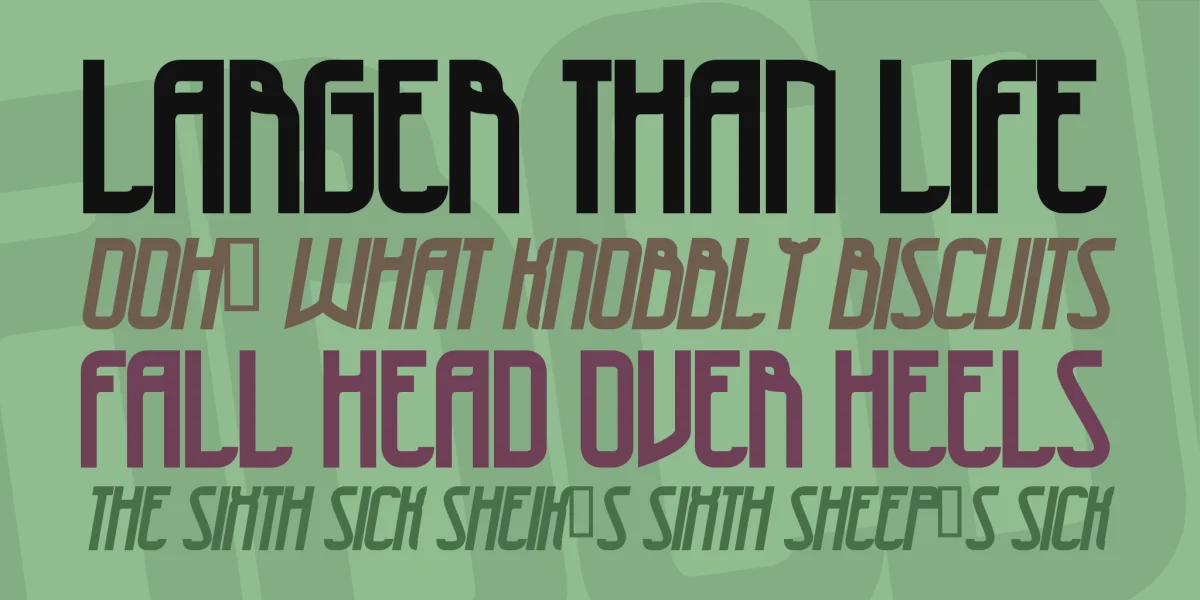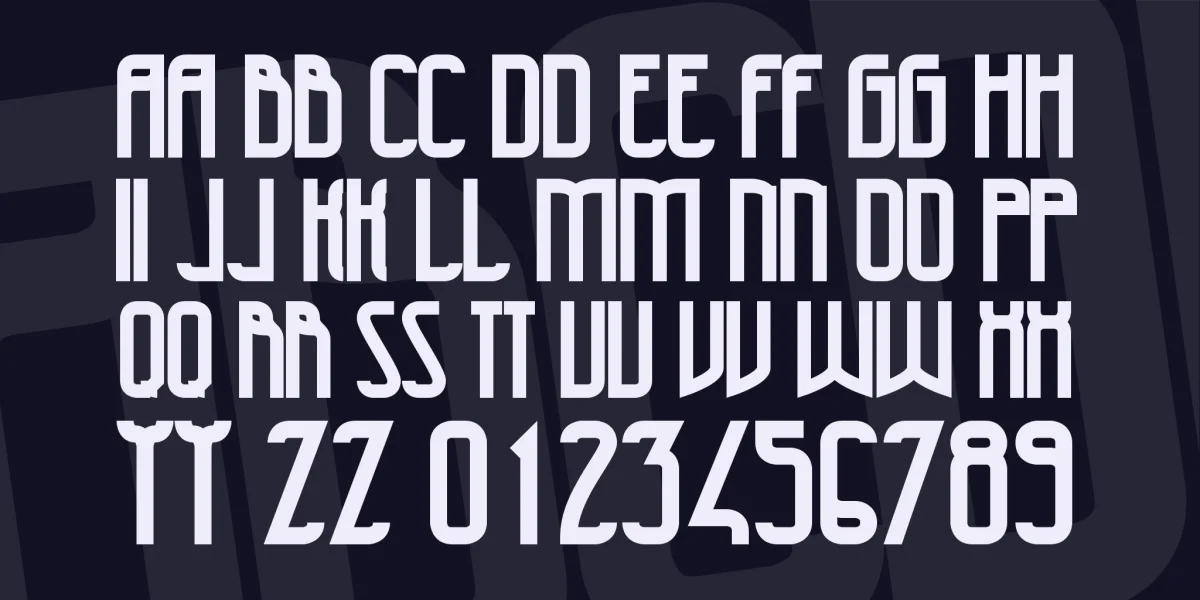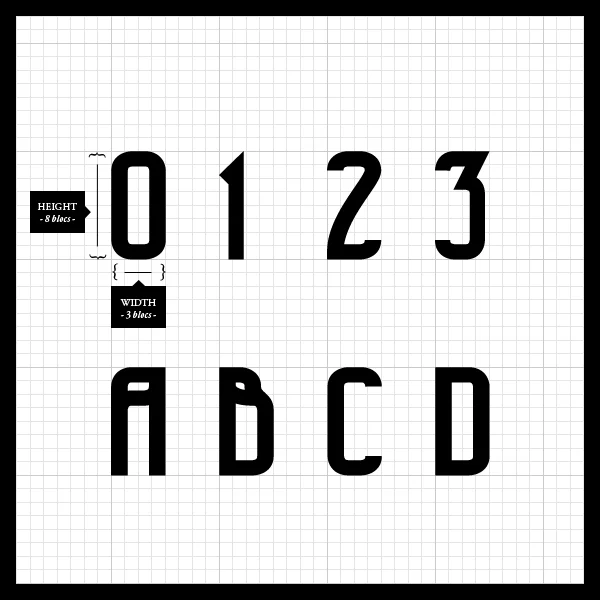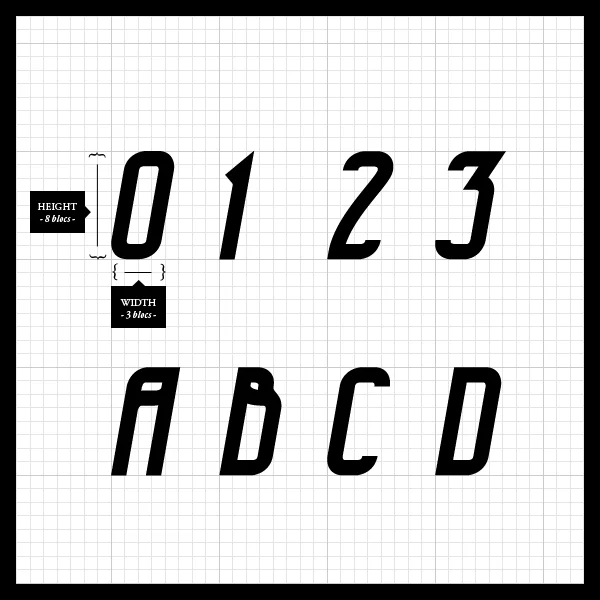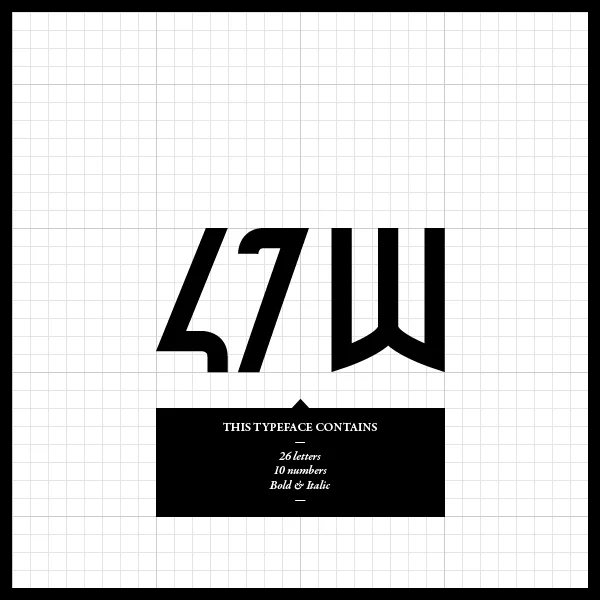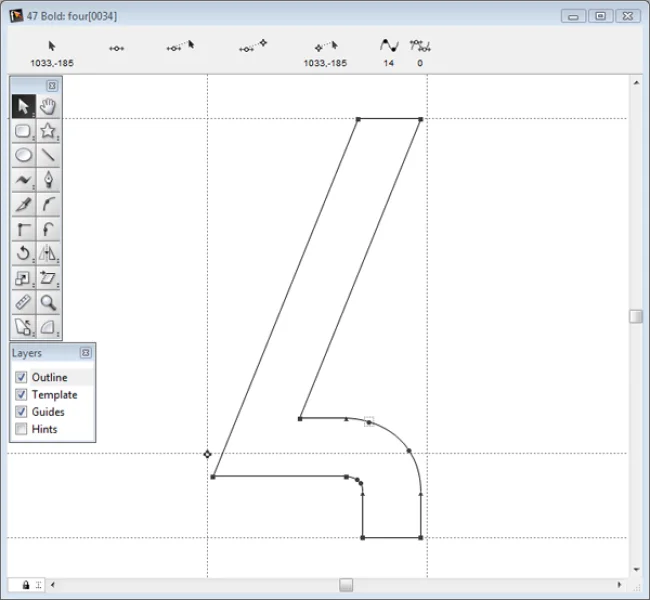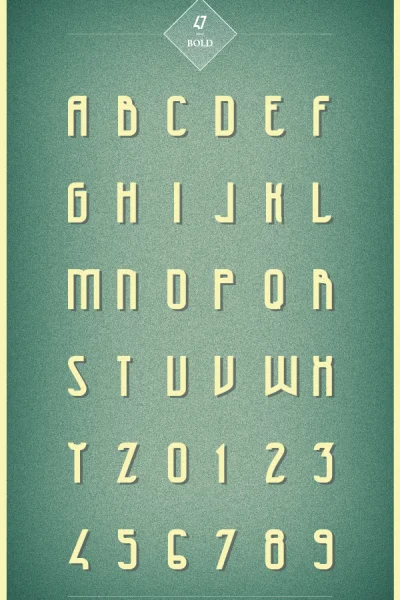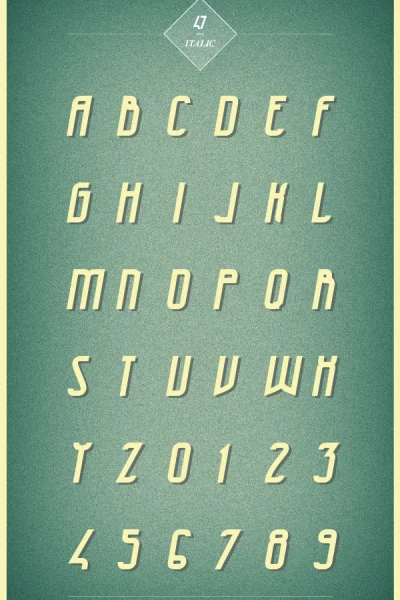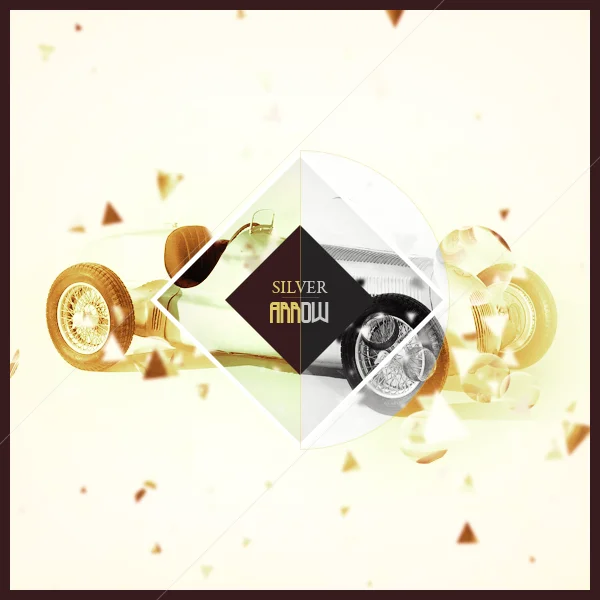
As MAGNA, 47 is a free typeface created in June 2012 and based on a "vintage" style too. This typeface contains all main characters (from A to Z - capitals & lowercases are the same) and numbers (from 0 to 9).
The gallery pictures show you how are the height and the width of the typeface and some examples on how it could be included on a logo, photo or anything else you would like to.